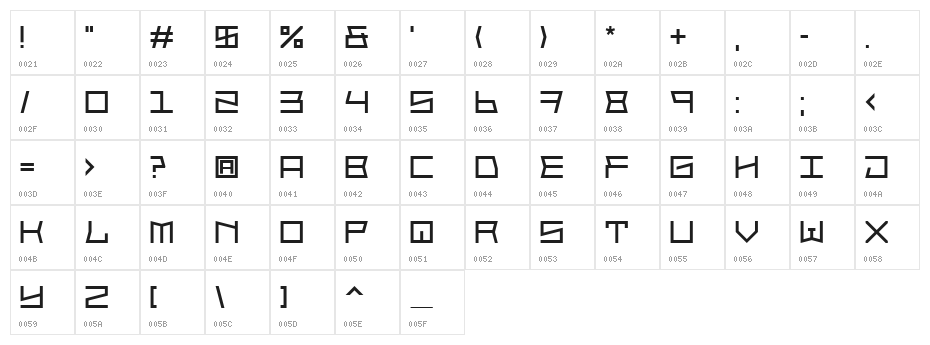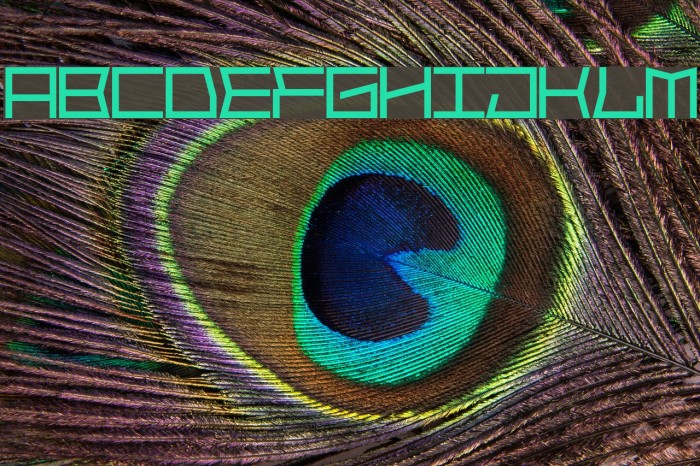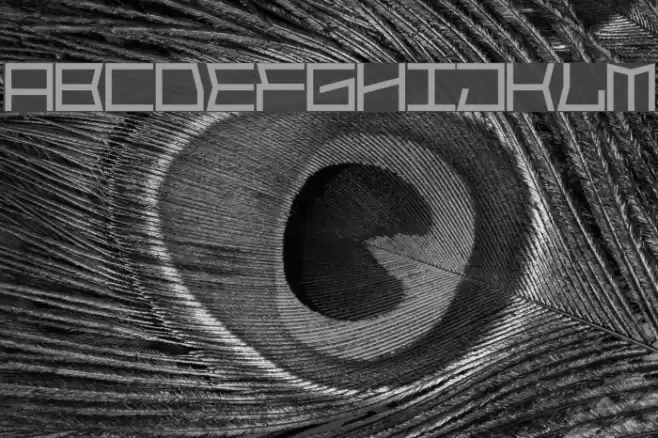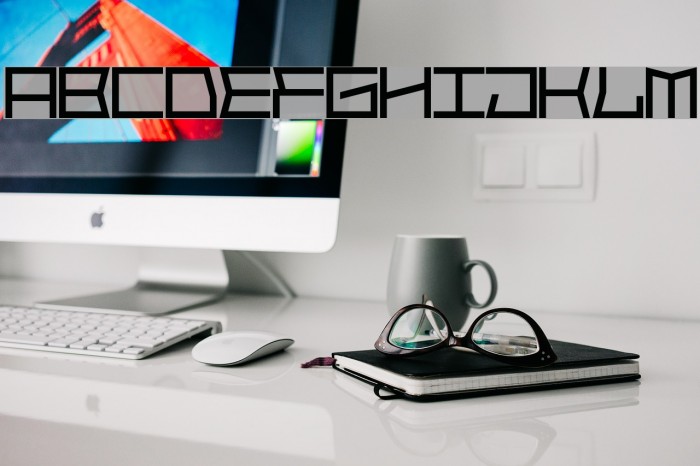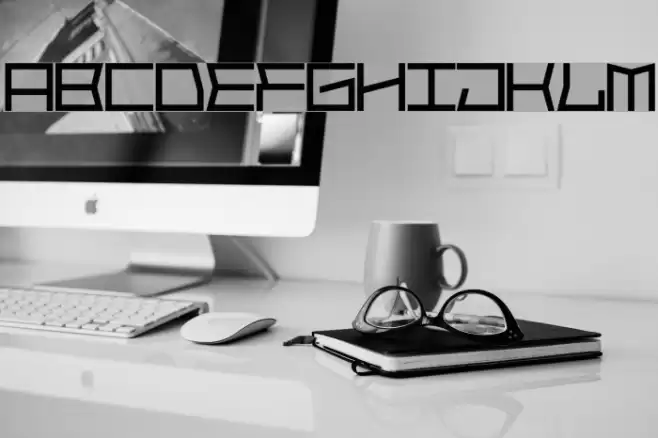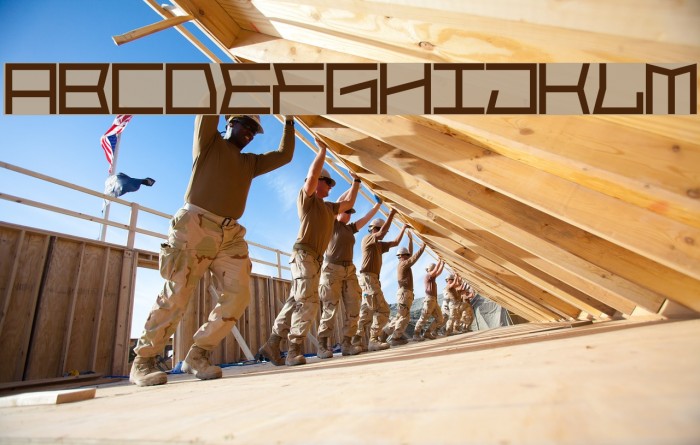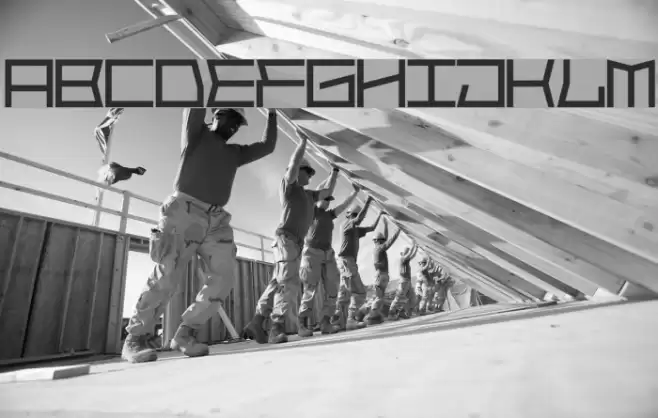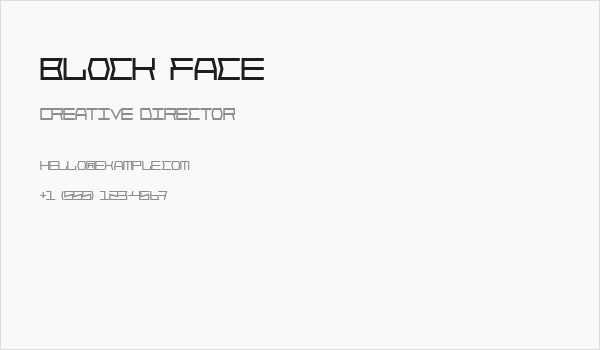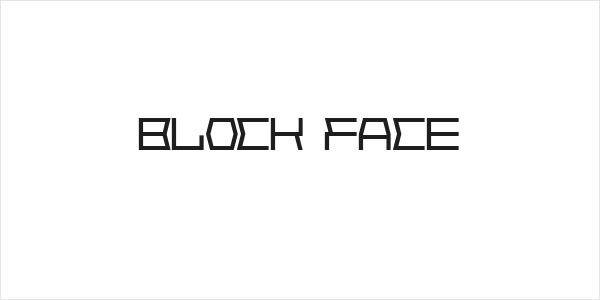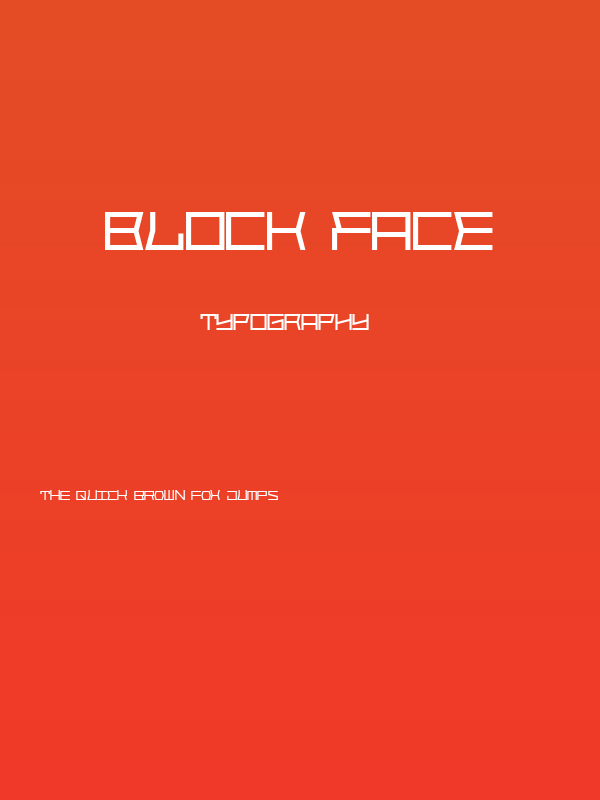
Block Face Font
Block Face Description
This font exhibits a bold, geometric style with a futuristic and angular appearance. Each character is constructed with straight lines and sharp angles, creating a blocky and mechanical aesthetic. The uppercase and lowercase letters maintain a consistent height, enhancing the uniformity and structured feel of the typeface. The numerals and special characters follow the same design principles, ensuring cohesion across all elements. The font's unique design makes it stand out, ideal for projects that require a modern and edgy look. Its distinct style is reminiscent of digital or sci-fi themes, making it suitable for creative and tech-oriented applications.
| Proposed Projects | Ideal for tech branding, sci-fi posters, video game titles, and digital interfaces. |